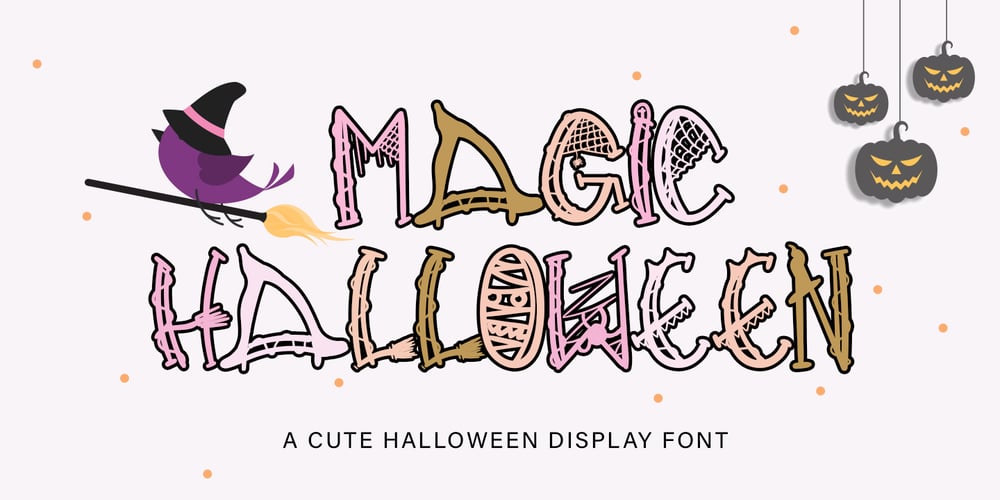
Magic Hallowen Font Family was designed by Nur Hasan and published by Reyrey Blue Std. Magic Hallowen contains 1 styles and family package options. Introducing Magic Halloween. It’s a cute and playful decorative Halloween font that will work great with your Halloween party.This type of font is perfect for logos, headlines, signage, and other various formal forms such as invitations, labels, logos, magazines, books, greeting/wedding cards, packaging, fashion, makeup, stationery, novels, labels, or any advertising purpose. This product was created to help you make your digital images even more beautiful and unique.